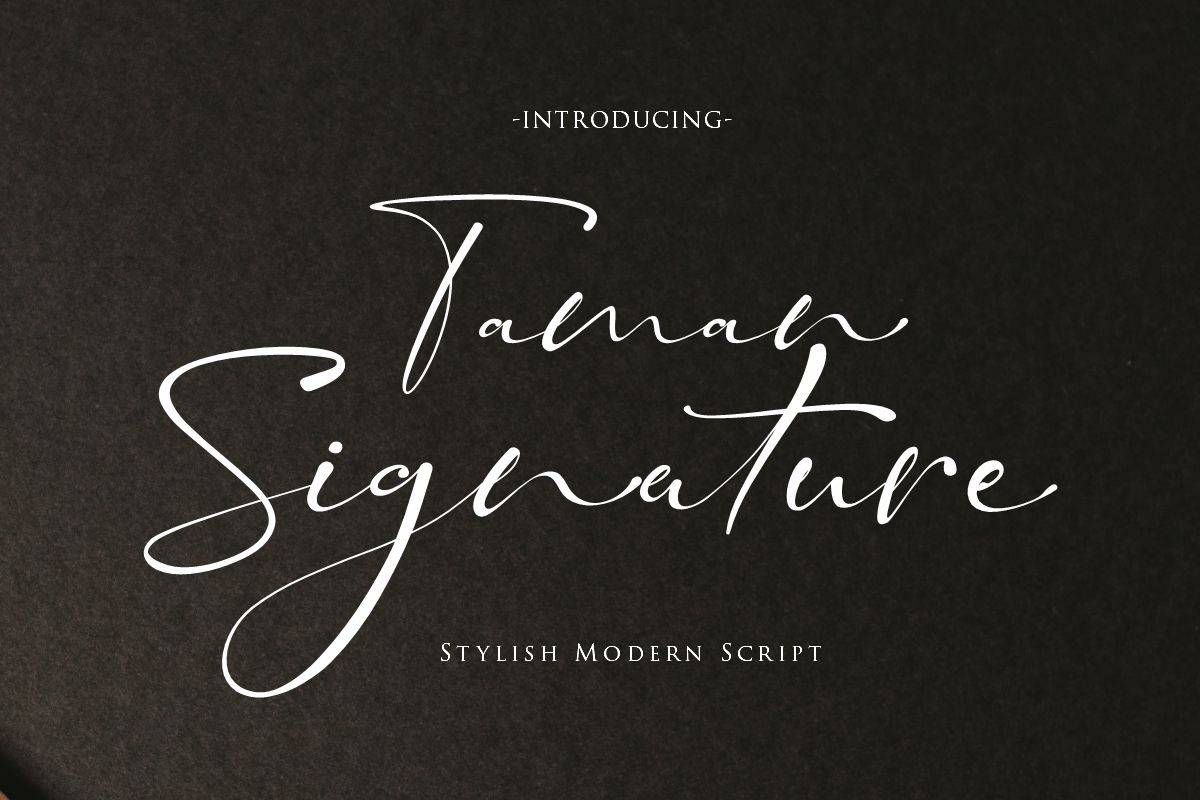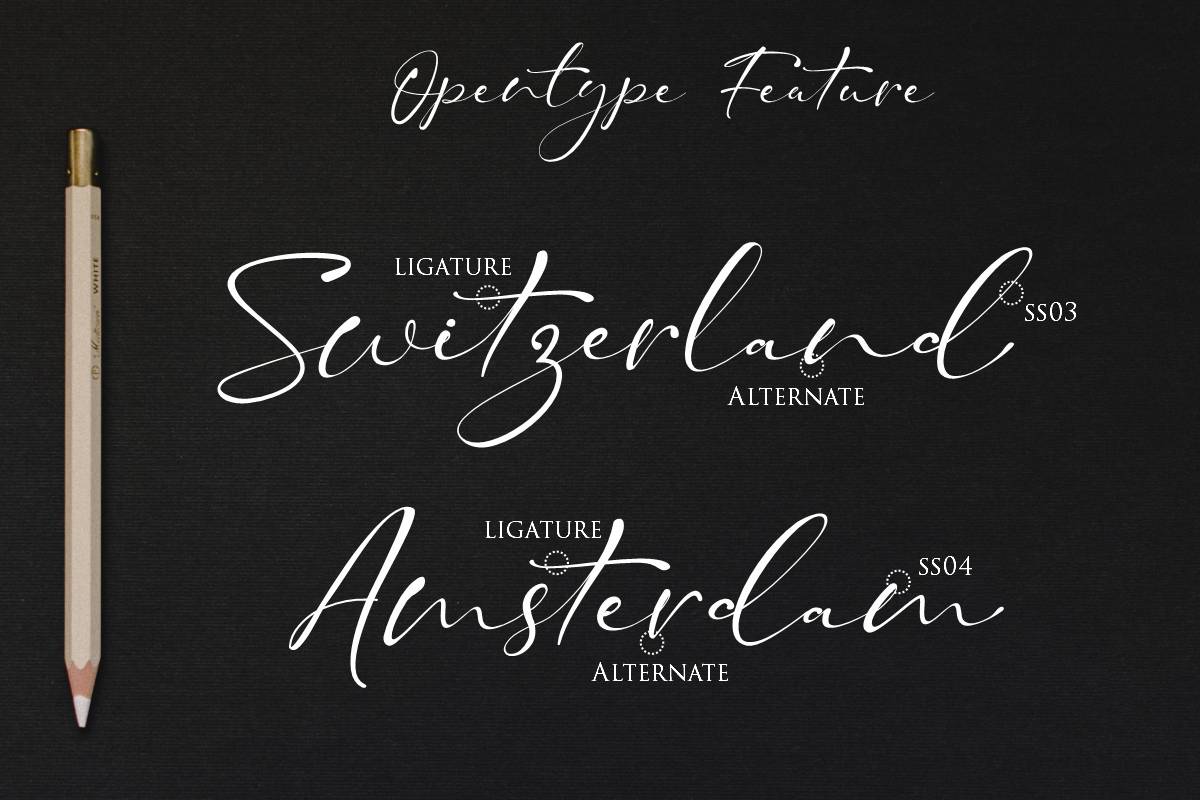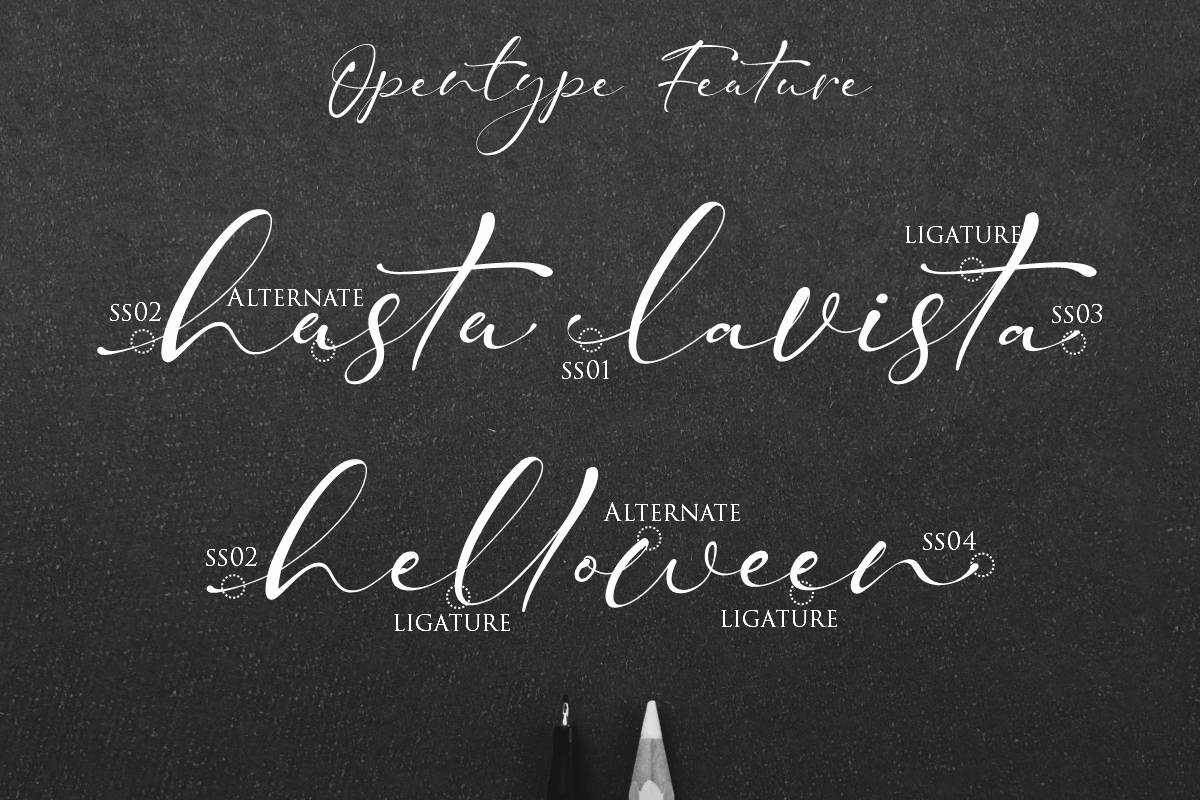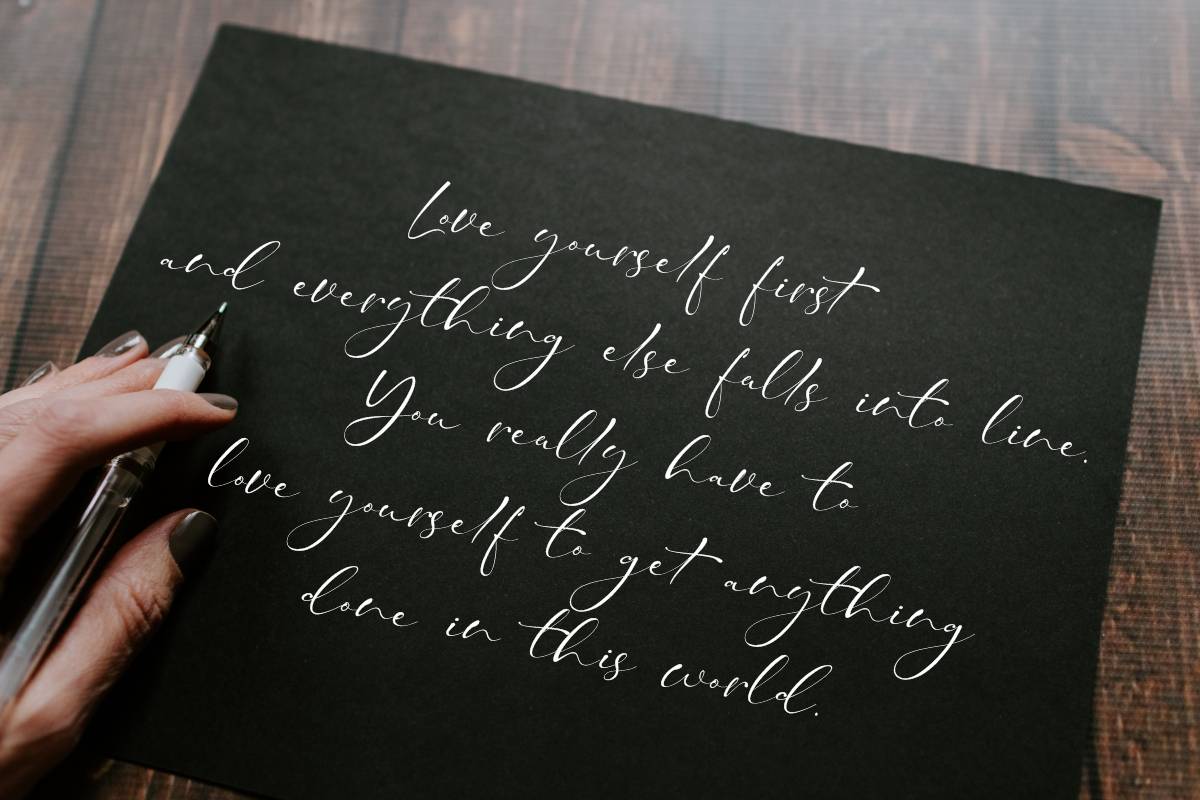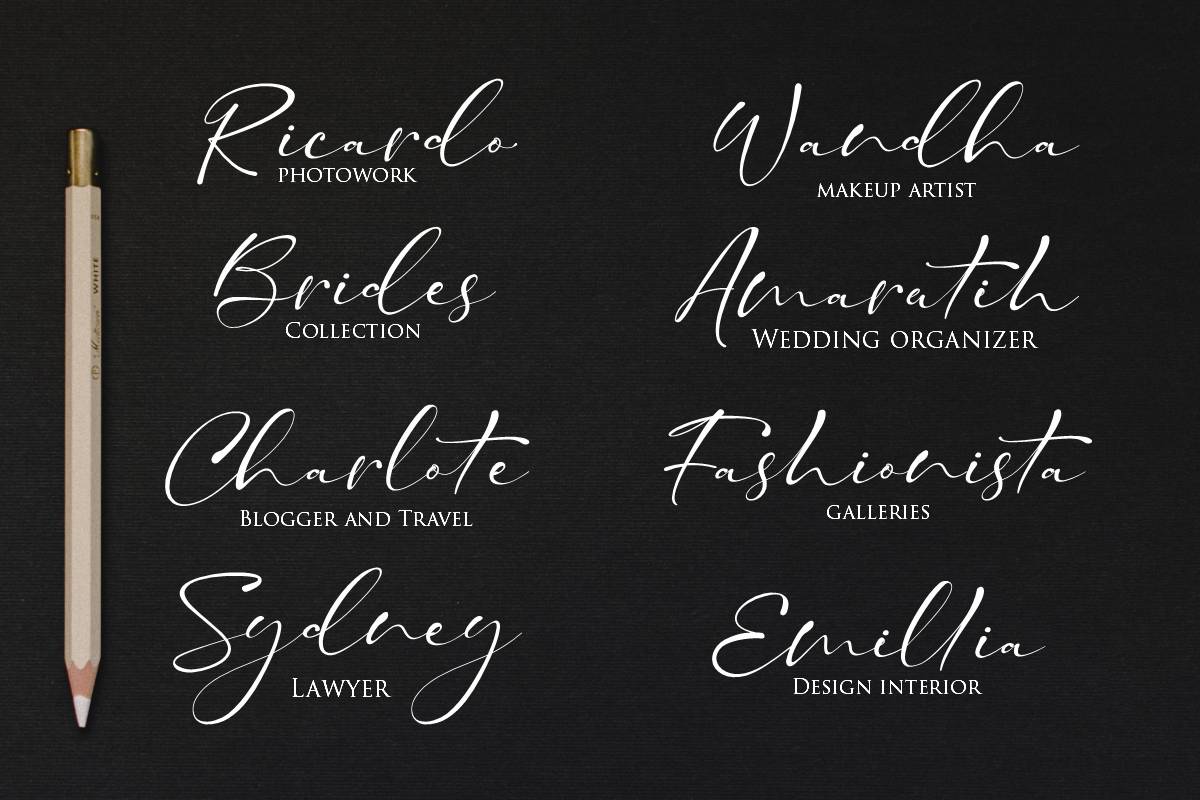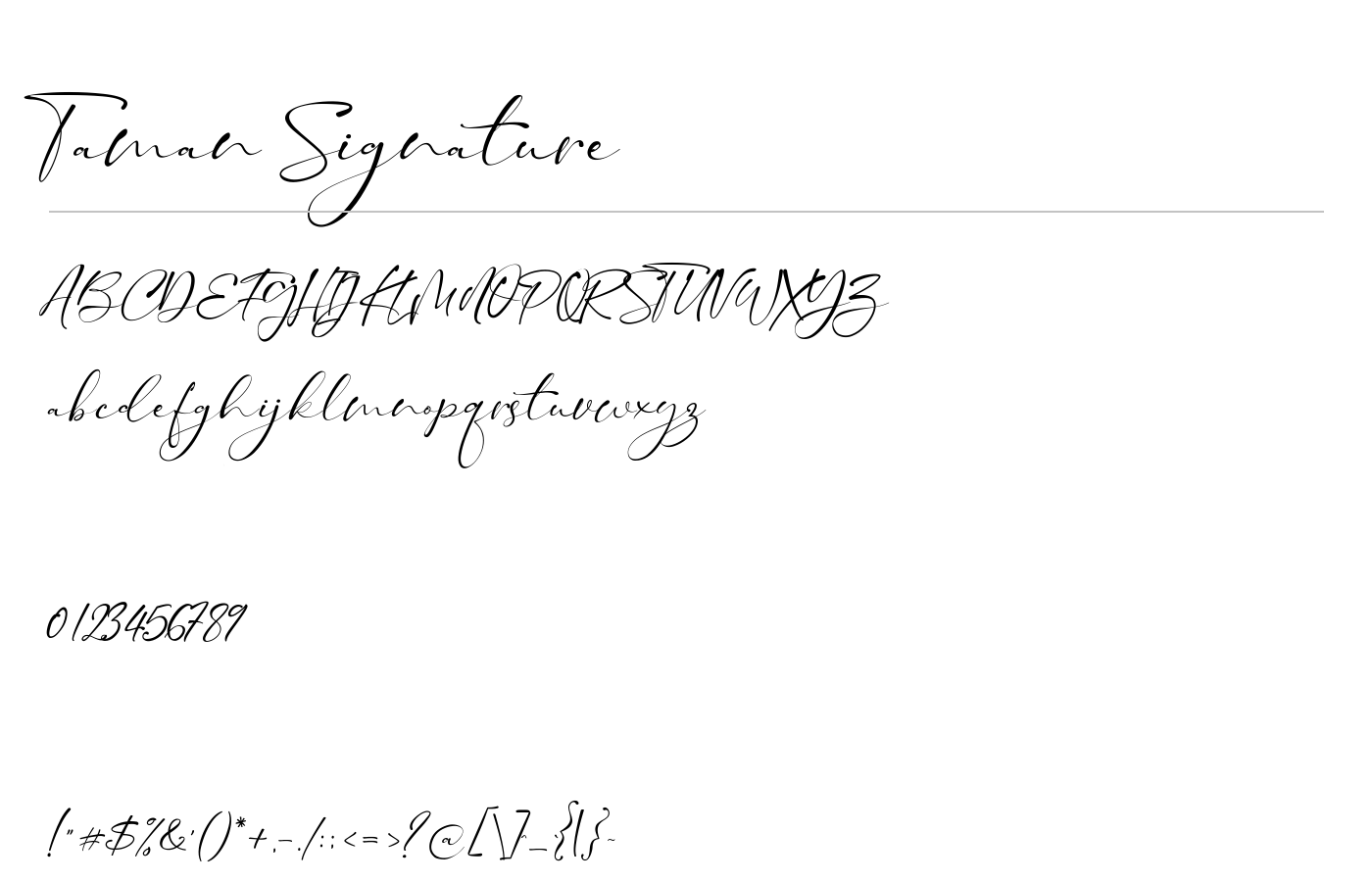
Taman Signature is an elegant, handwritten script font that features delicate, flowing strokes with a natural, calligraphic style. Its thin lines and graceful loops give it a refined, personal touch, making it ideal for luxury branding, wedding invitations, and stylish logos that want to convey sophistication and creativity. This font’s airy, artistic feel works well in designs that require a modern yet intimate handwritten appearance.
Taman Signature Font
About Taman Signature Font